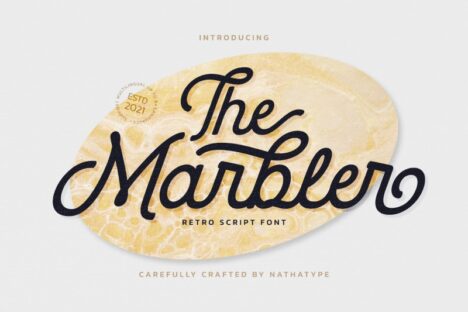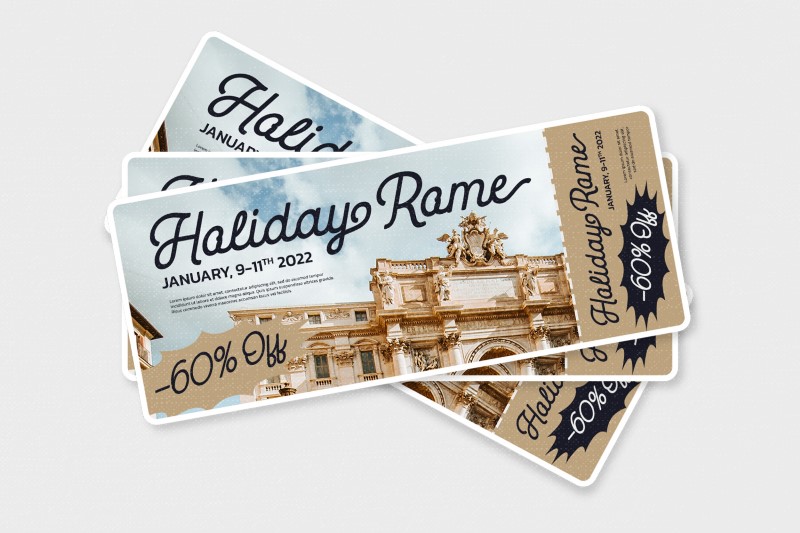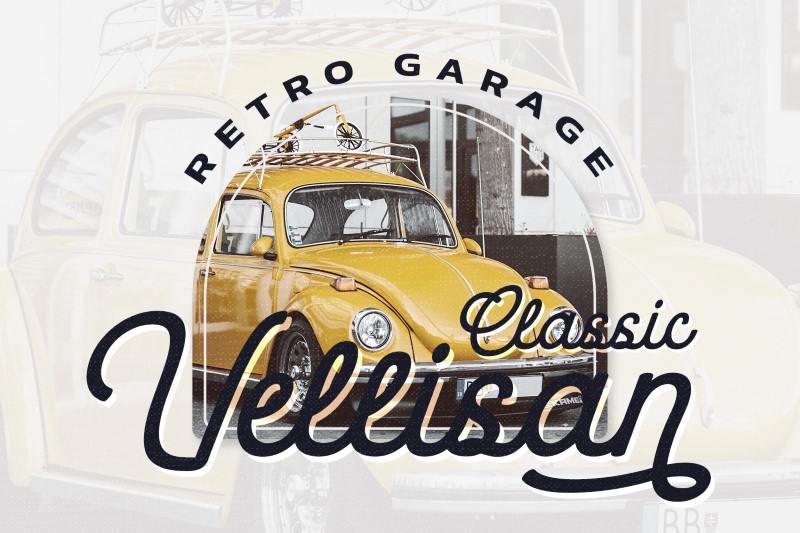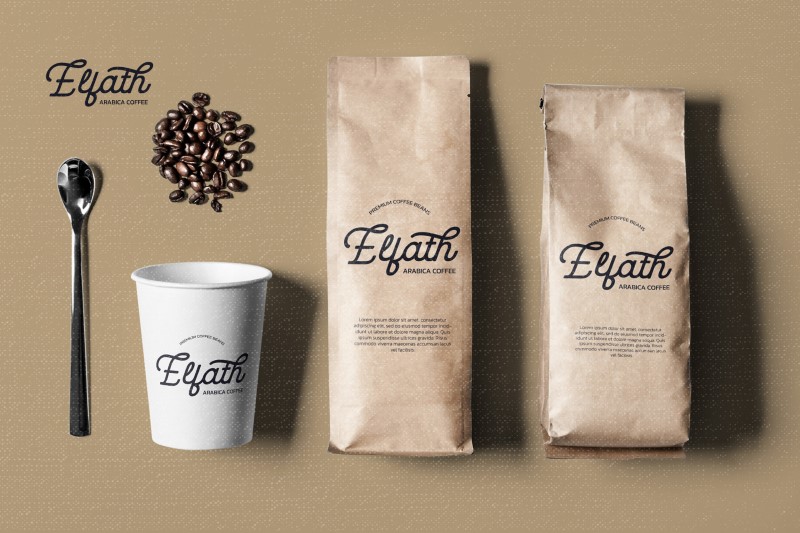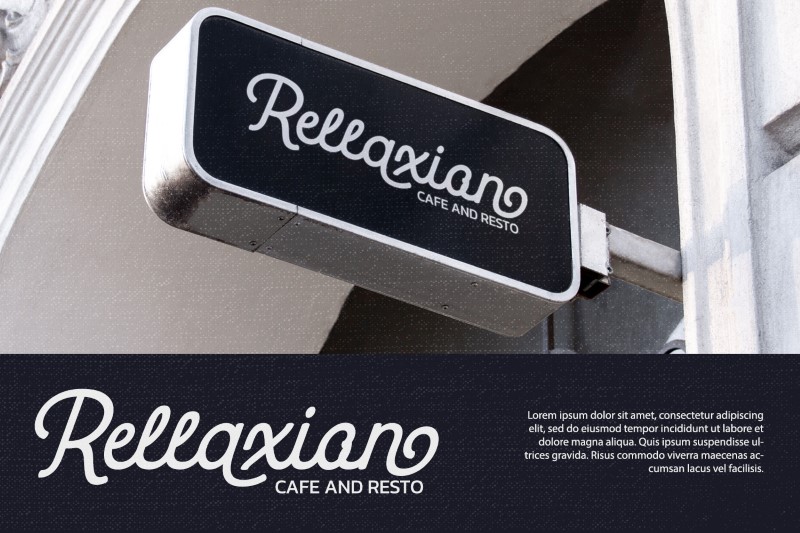
The Marbler
The Marbler is a retro script font inspired by the 1960s font style to express a vintage  yet elegant touch. This font’s display represents a variety of handwriting styles, such as swashes and final swinging wipes of which character is the interconnections among letters to use in bigger-sized texts for a legibility reason. Enjoy some features available in this font.
• Ligatures
• Stylistic Sets
• Swashes
• Multilingual Options
• Numerals and Punctuation
The Marbler will be amazing to apply for various designs, such as posters, logos, book covers, album covers, headings, printed products, merchandise, clothes designs, quotes, invitations, pamphlets, greeting cards, product packages, social media, and more.